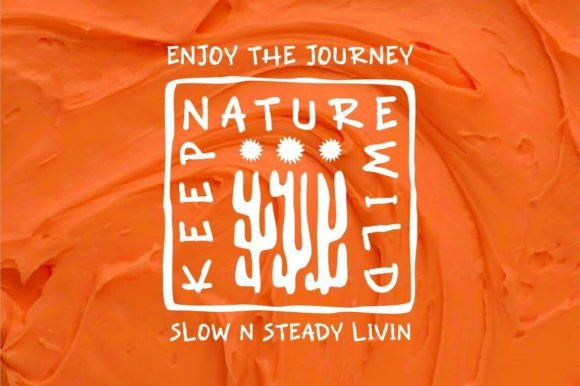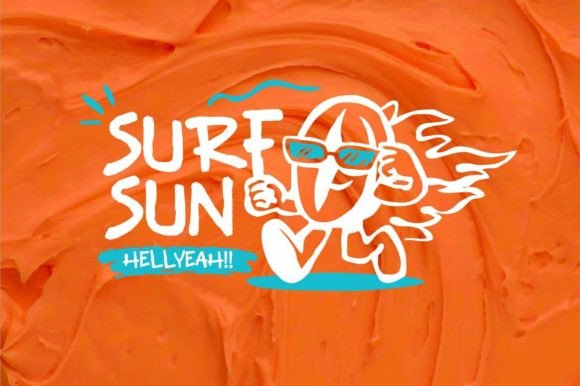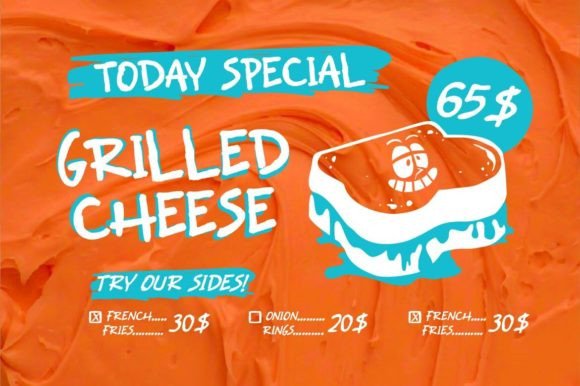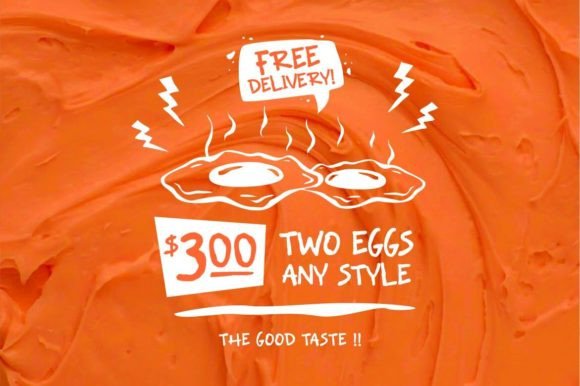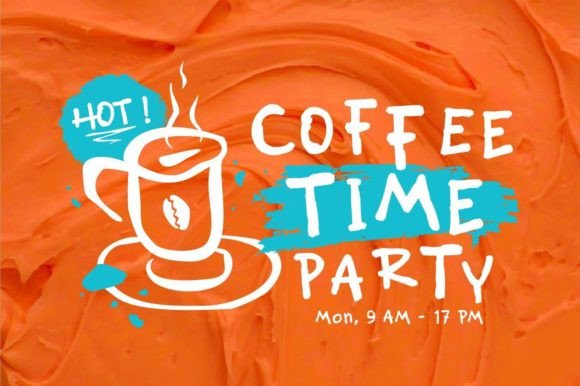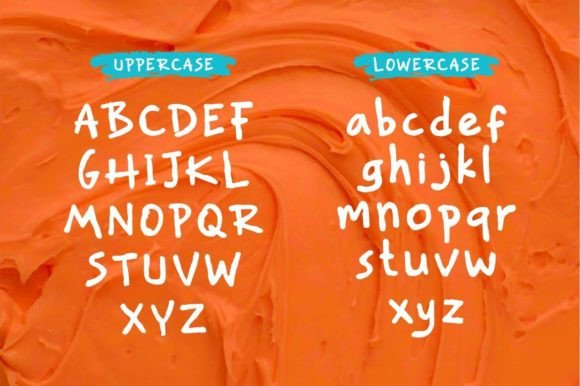
The Bounty Paint Font: A Youthful and Joyful Design Essential
I’ll never forget the design project that led me to discover the Bounty Paint font. I was working on a branding project for a trendy new coffee shop, and I was struggling to find a font that captured the youthful and playful vibe they wanted to convey. That’s when I stumbled upon Bounty Paint, and it instantly became the perfect fit. In this article, I’ll share my experience with this unique font, its features, and how to make the most of it in your designs.
A Personal Review of Bounty Paint Font
• ✨ Unique and playful design that’s perfect for food places, restaurants, cafes, or coffee shops
• ✅ Youthful vibe that’s full of joy and energy
• ✅ Suitable for various design projects, including logo design, business branding, posters, flyers, social media kits, and more
While Bounty Paint is an excellent font, there are a few things to keep in mind:
• ⚠️ Limited character set compared to some other fonts
• 🤔 May not be the best choice for very formal or traditional designs
Bounty Paint font comes with a range of OpenType features and glyphs that can enhance your design. Here are a few tips:
• Experiment with ligatures and swashes to add more personality to your text
The Story Behind Bounty Paint Font
Bounty Paint was designed with the goal of creating a unique and playful font that captures the energy and joy of food and drink culture. The designer drew inspiration from the colorful and lively atmosphere of cafes, restaurants, and food trucks, aiming to create a font that’s both youthful and sophisticated.
Q: What type of designs is Bounty Paint best suited for?
A: Bounty Paint is perfect for branding food places, restaurants, cafes, or coffee shops, as well as logo design, business branding, posters, flyers, social media kits, and more.